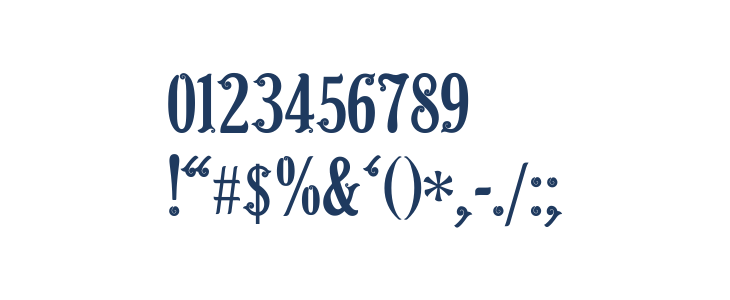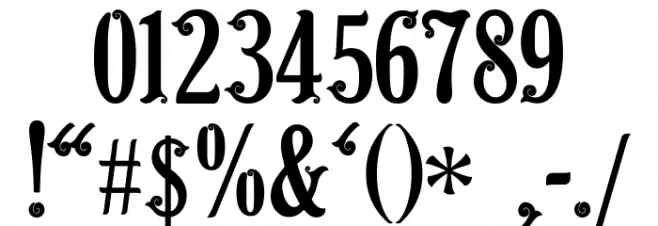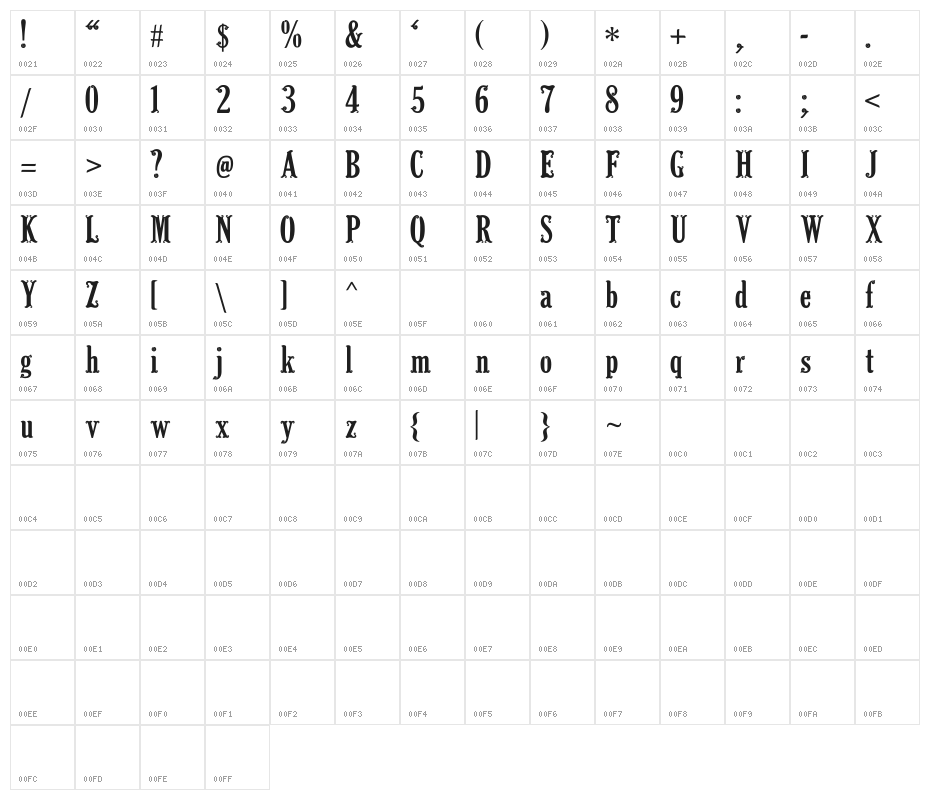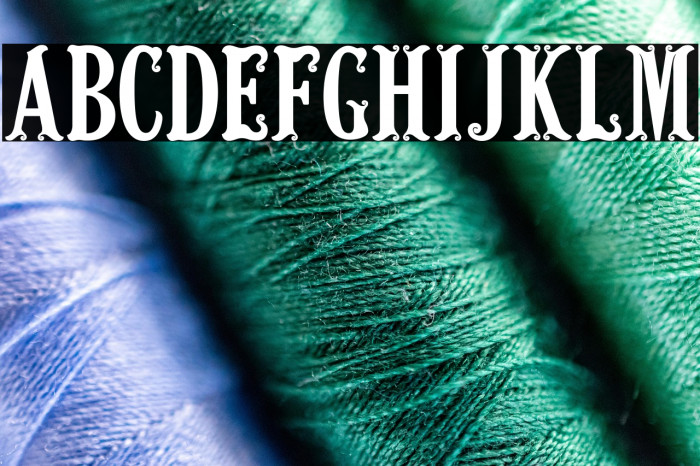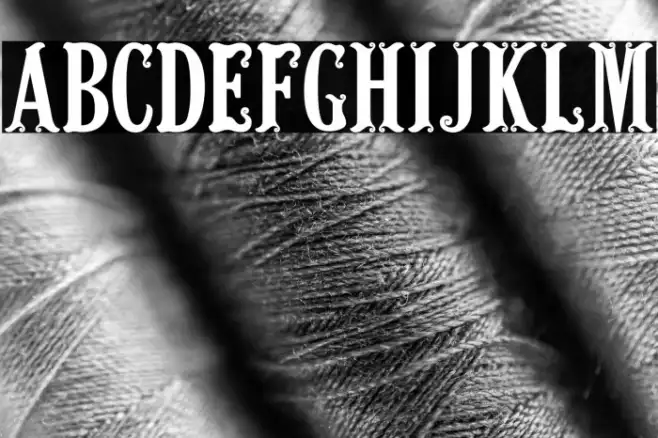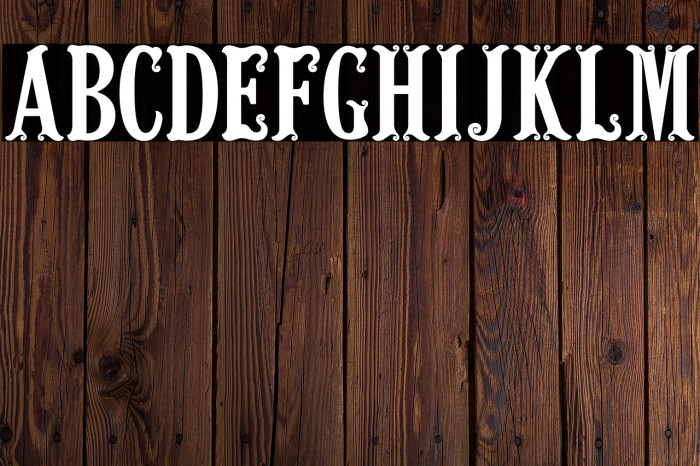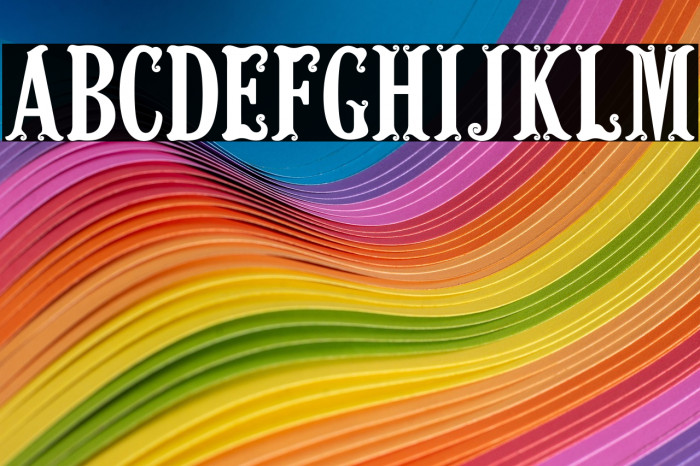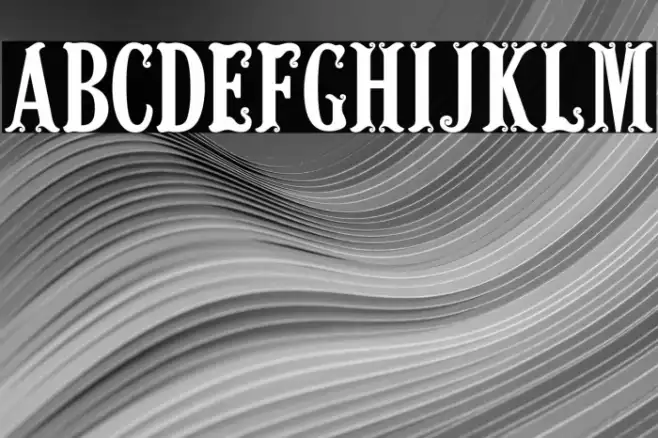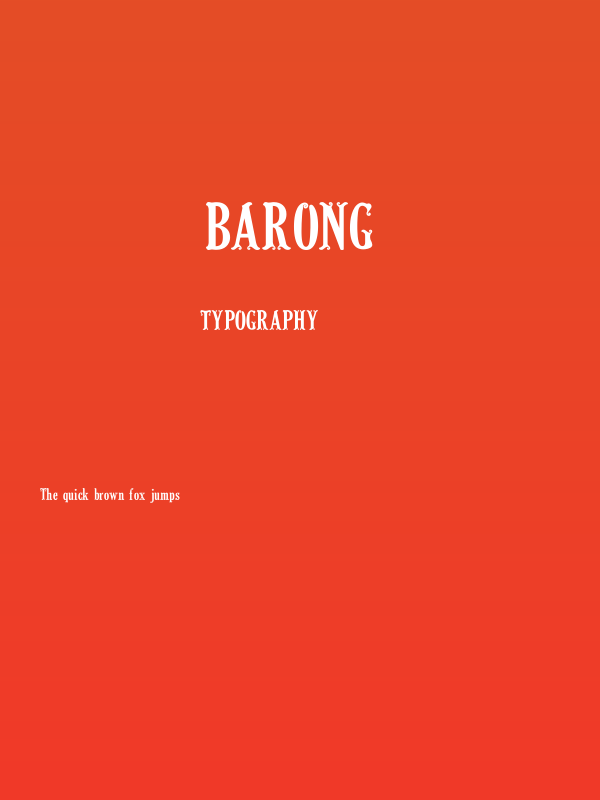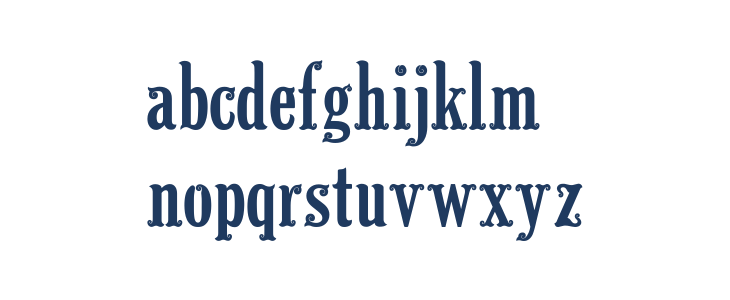
Barong Font
Barong Description
This font features a decorative and playful style with unique, curly serifs that add a whimsical touch to each character. The uppercase and lowercase letters maintain a consistent height, creating a harmonious look. The numbers and special characters are equally ornate, with distinctive flourishes that enhance their visual appeal. The overall design is bold and eye-catching, making it suitable for projects that require a touch of creativity and flair. The font's intricate details make it stand out, while its bold weight ensures readability.